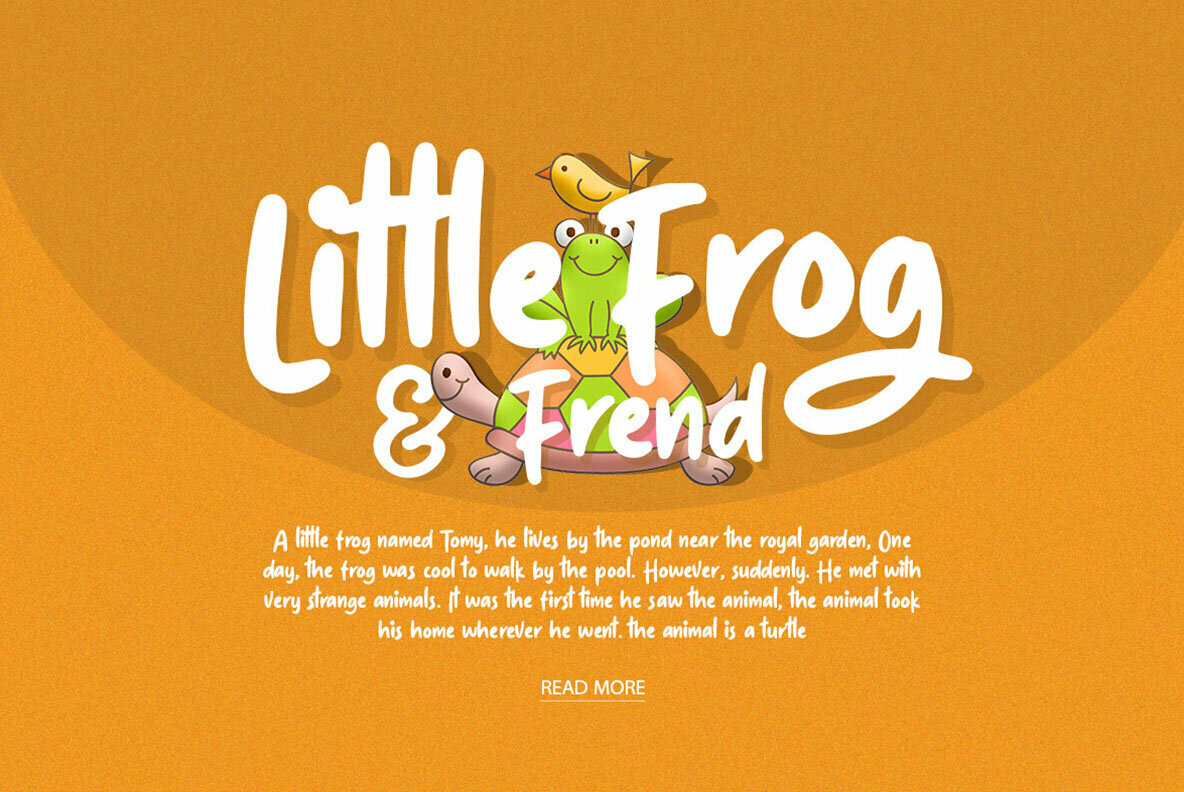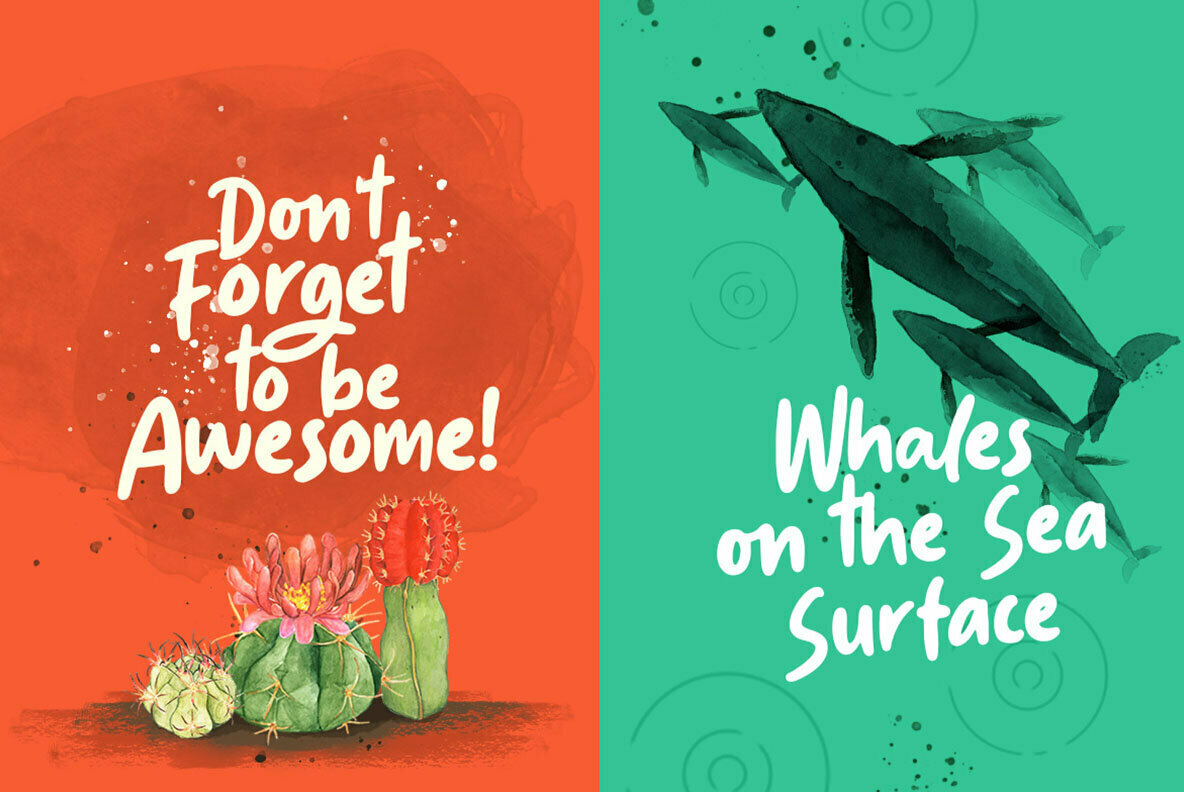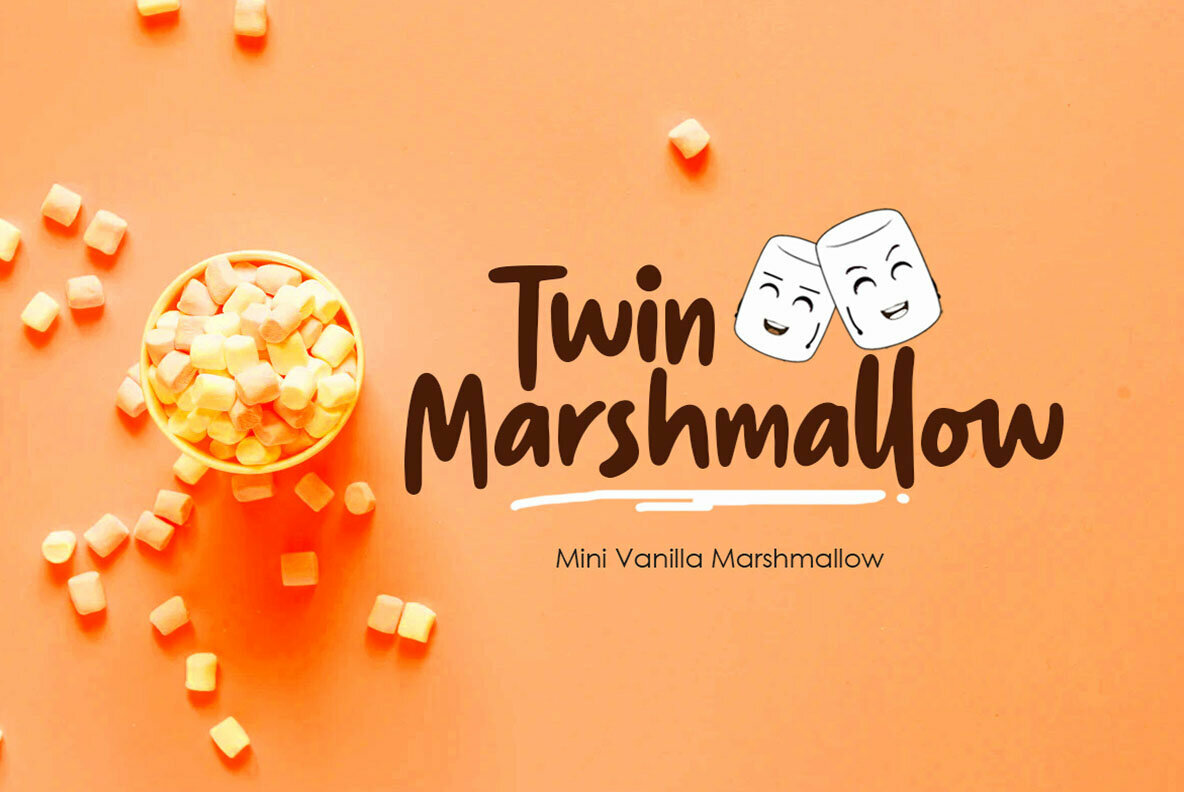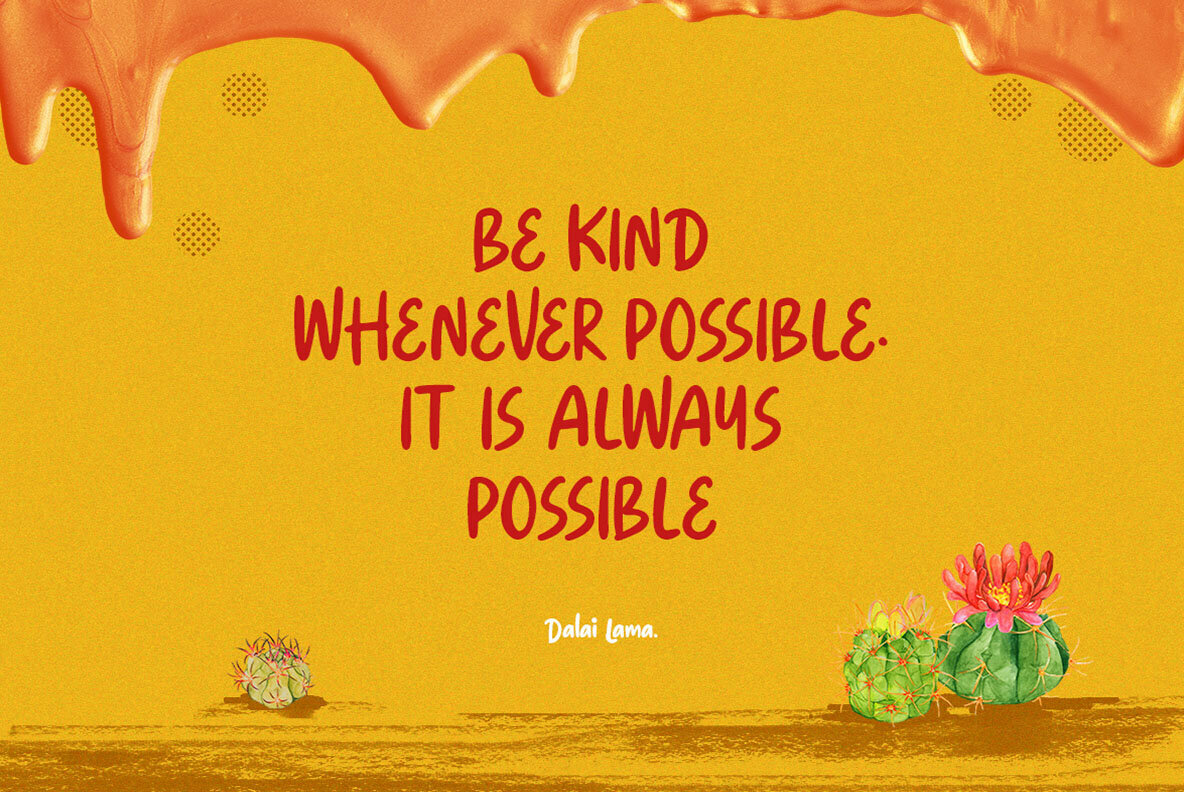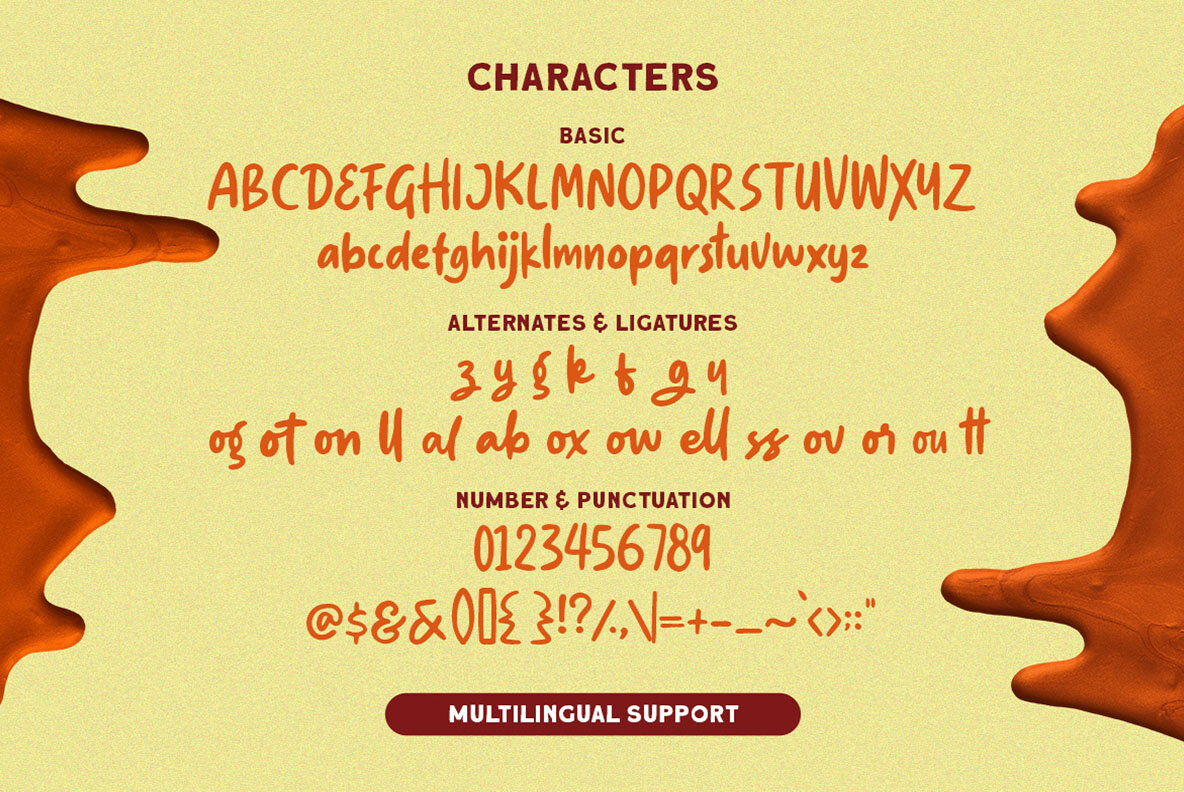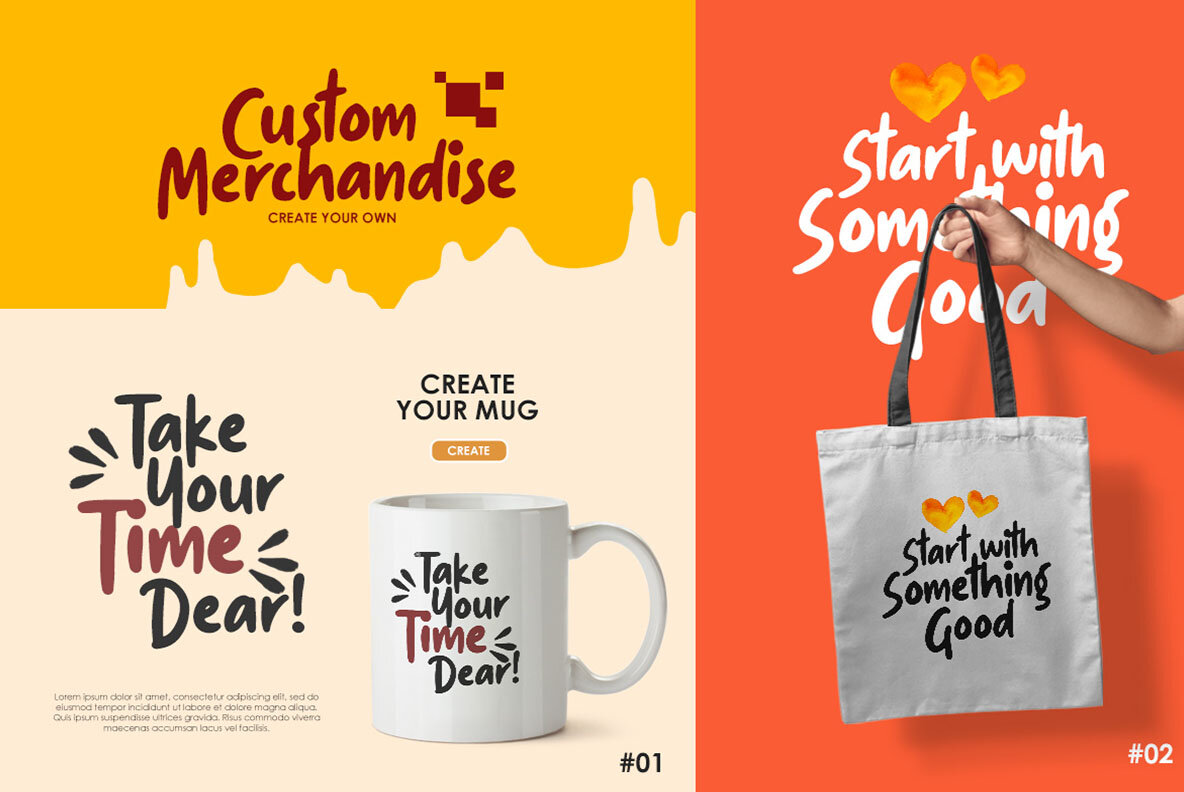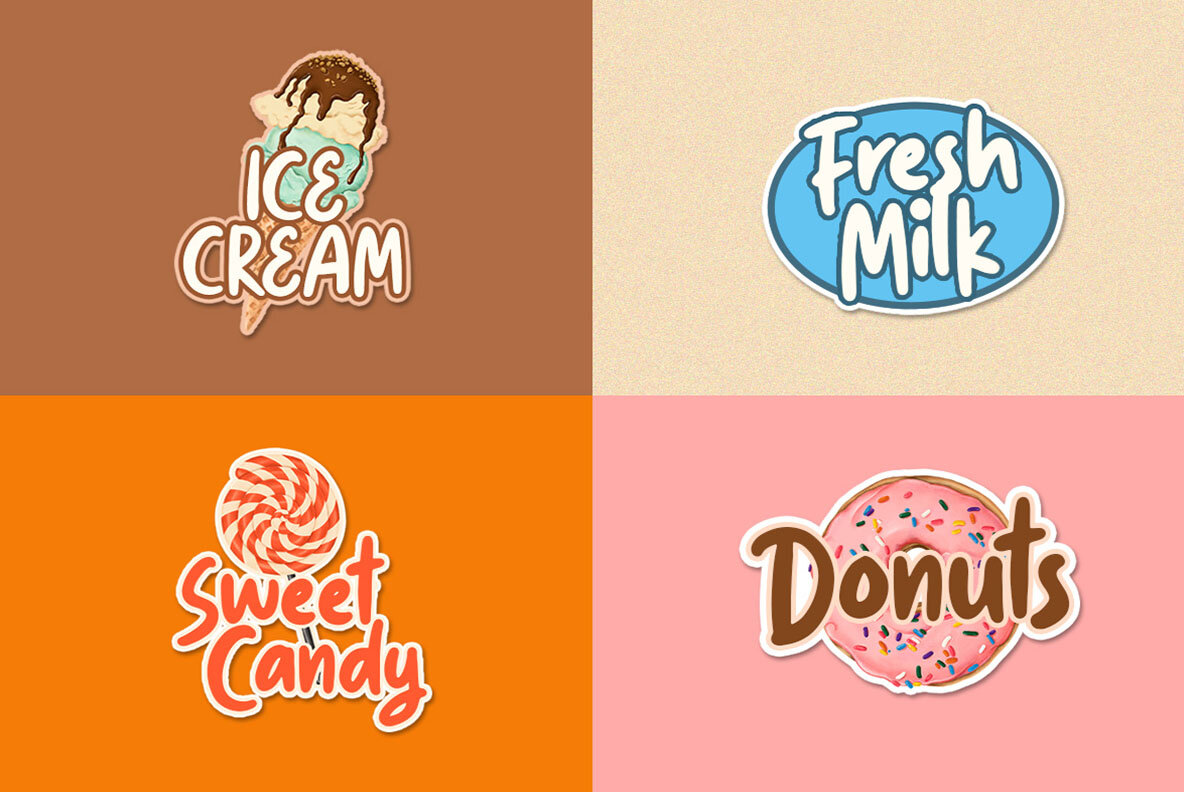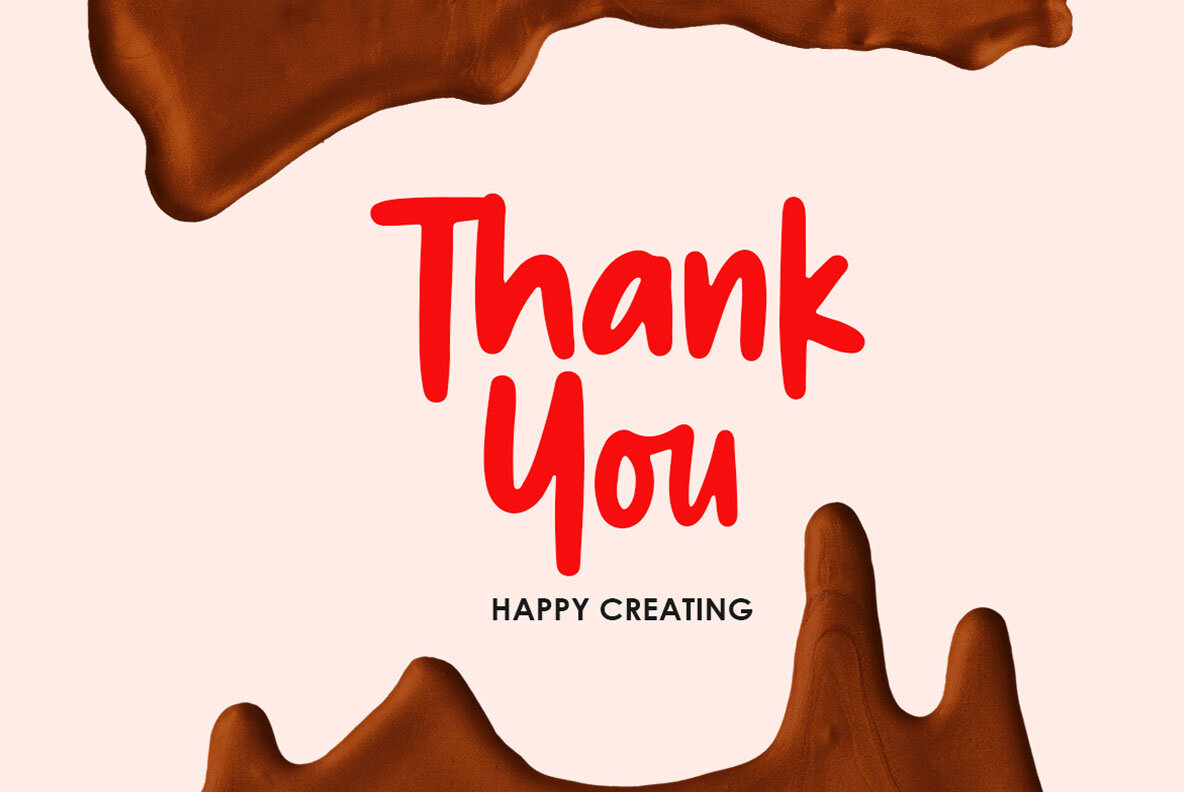
Slime Yogurt Font
Slime Yogurt
Slime Yogurt is a fun and playful font which is made by a natural hand writing. The bold stroke make this font looks stands out, very suitable to be applied especially for logo, title, headline, slogan / tagline and the other various formal forms such as invitations, labels, logos, magazines, books, greeting / wedding cards, packaging, fashion, make up, stationery, novels, labels or any type of advertising purpose.
- numbers and Punctuation
- Nultilingual
- Alternates & Ligatures